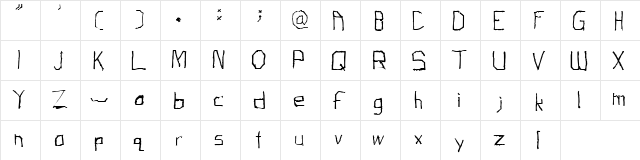
Third Grade Techno Normal
Design Context for Third Grade Techno Typeface
Third Grade Techno channels digital-age aesthetics through its sharp, structured letterforms — ideal for brands that want to signal innovation.
Pro Tip: Use Third Grade Techno in combination with a neutral sans for body text. Let it define the brand voice in headlines while keeping reading comfortable elsewhere.